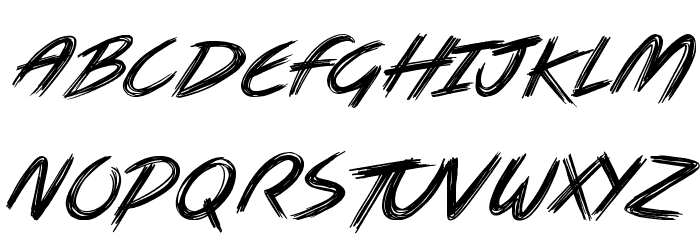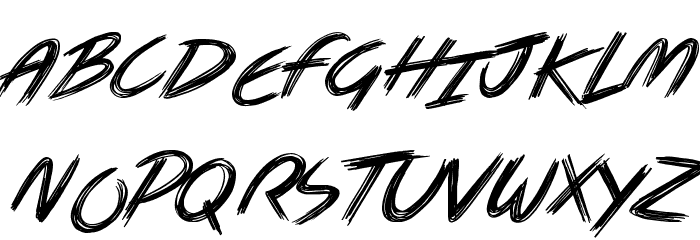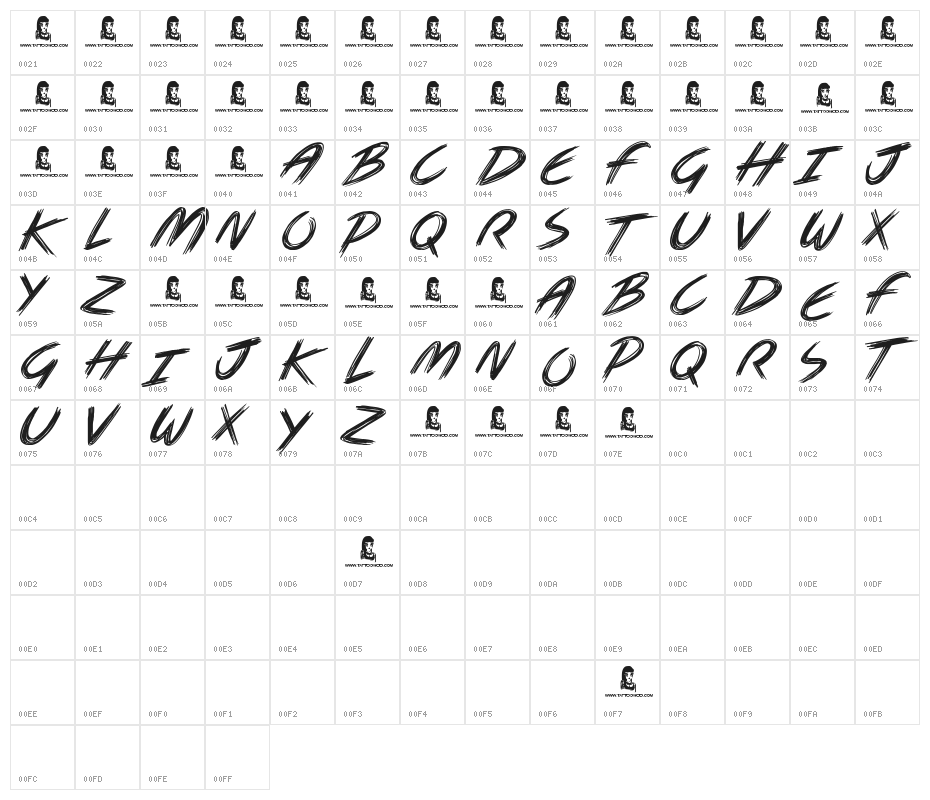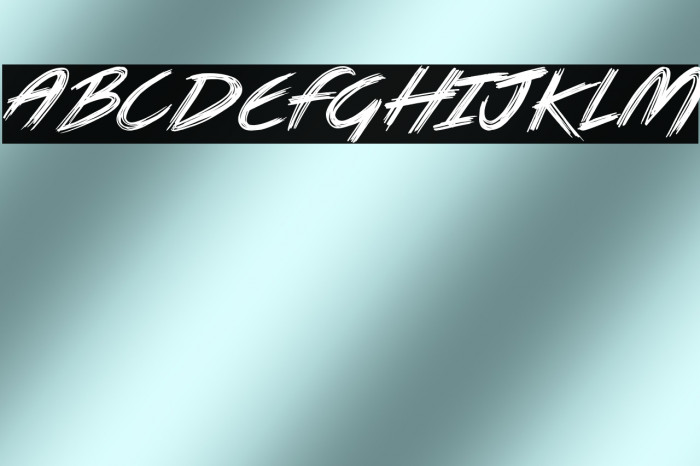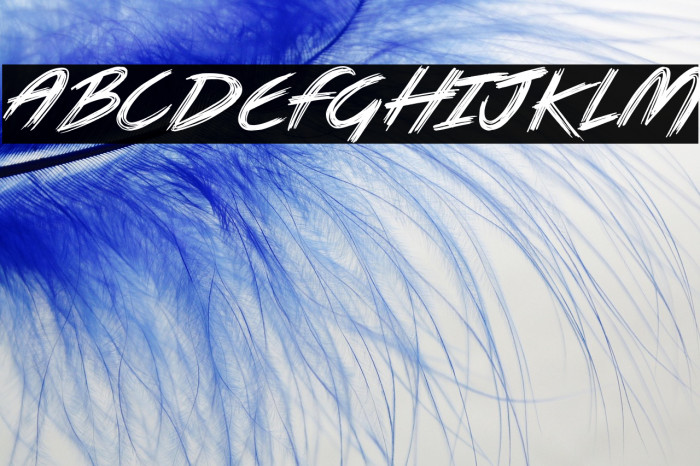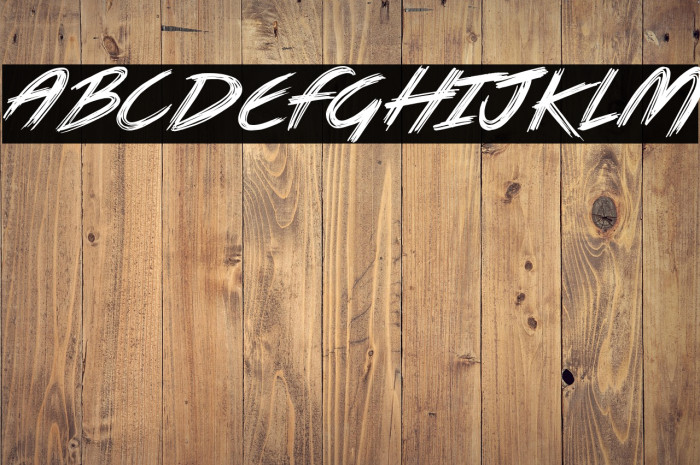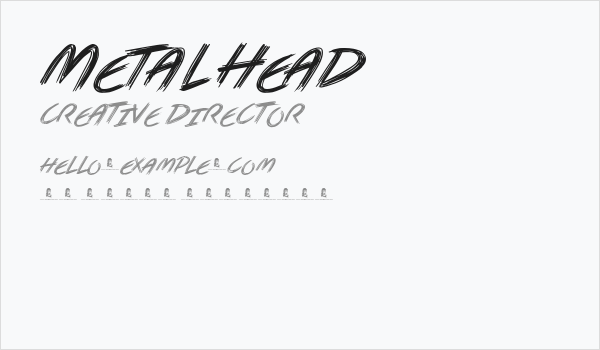
Metal Head Font
This font exudes a bold and edgy aesthetic, characterized by its sharp, angular strokes and dynamic, energetic flow. The letters are crafted with a brush-like texture, giving them a raw, hand-drawn appearance that suggests movement and intensity. Each character is distinct, with exaggerated angles and a slightly irregular baseline, enhancing its rebellious and unconventional style. The font's design is reminiscent of graffiti or street art, making it ideal for projects that require a strong visual impact and a sense of urban flair.
A bold, brush-like font with sharp, angular strokes and a dynamic, edgy style.
- Font: Metal Head
- Proposed Projects: Ideal for music album covers, event posters, streetwear branding, and any project seeking a bold, rebellious aesthetic.
- Overall Style: Modern, Urban, Edgy